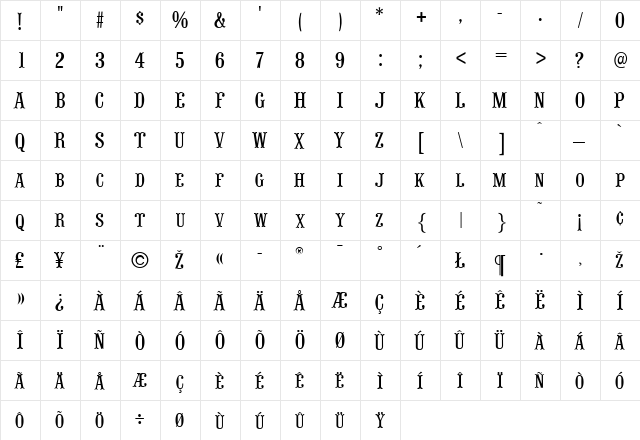
Stereopticon Regular
| Foundry | Digitized by Dan X. Solo. Software \ by Dover Publications, Inc |
Design Context for Stereopticon Typeface
Stereopticon offers clean, dependable letterforms without strong stylistic allegiance, making it a practical choice for designers who need flexibility.